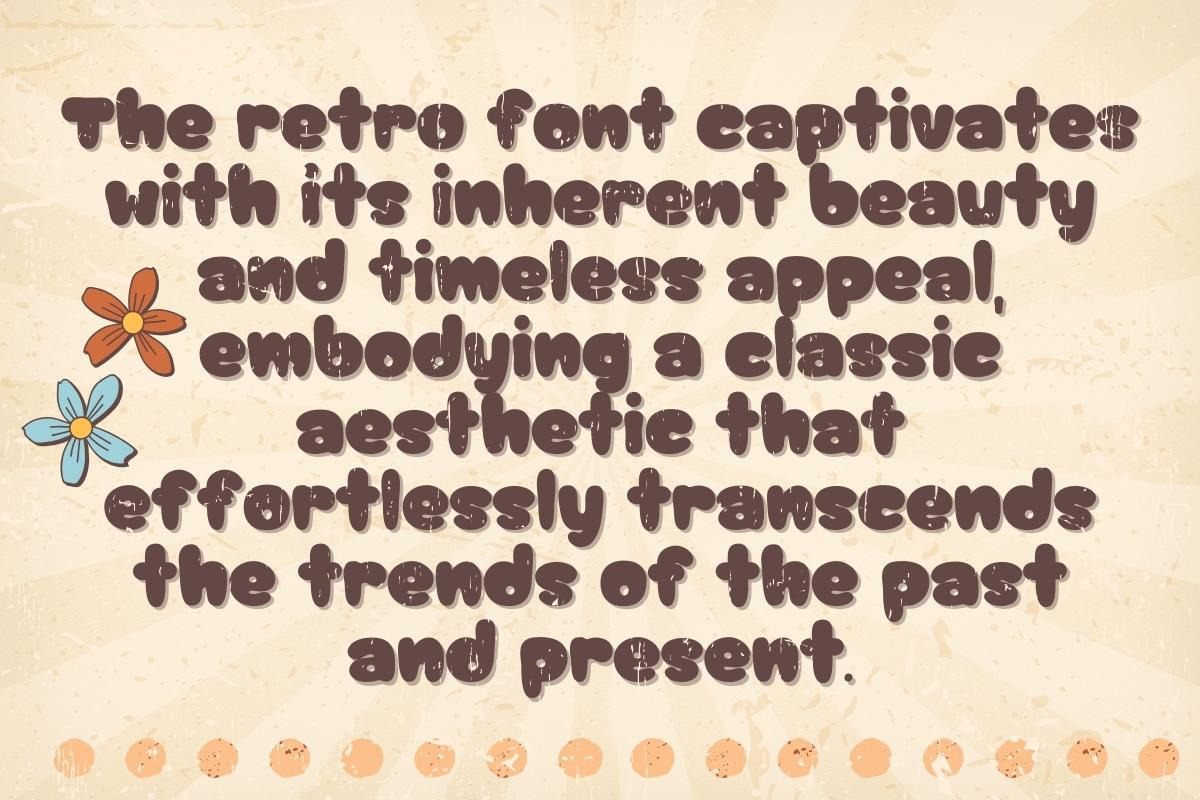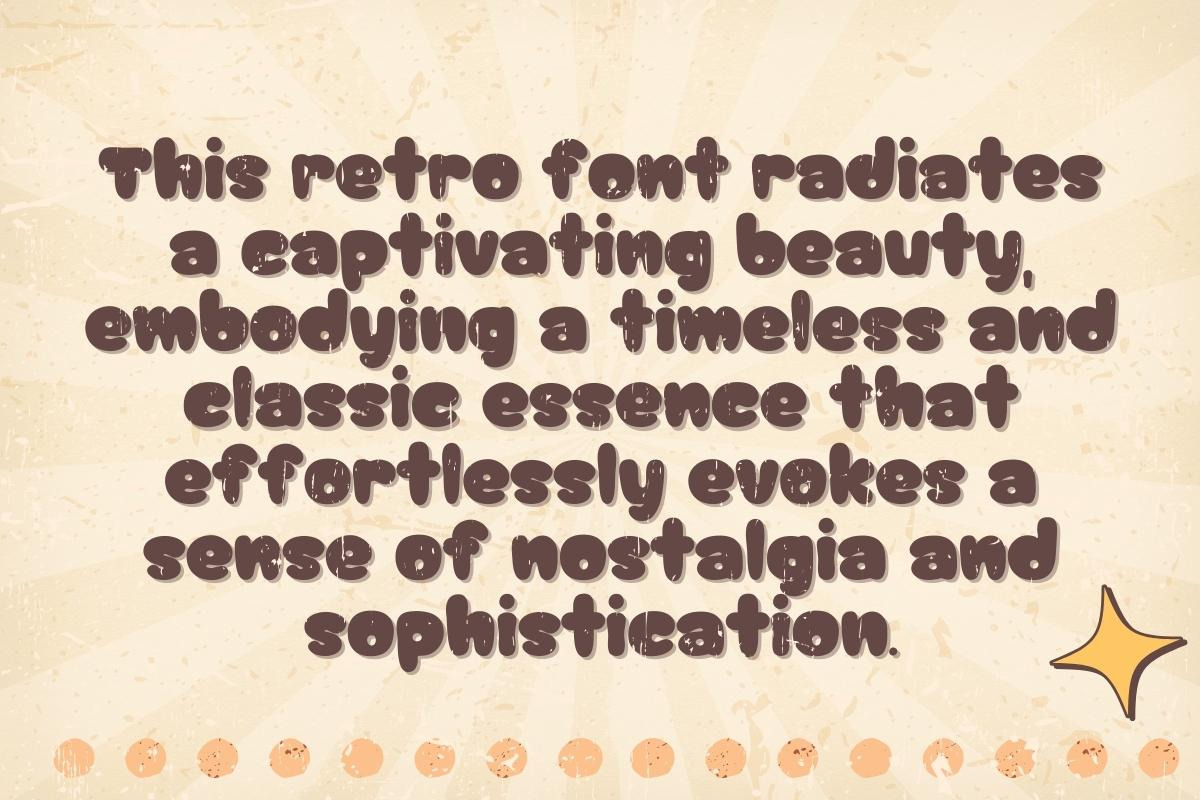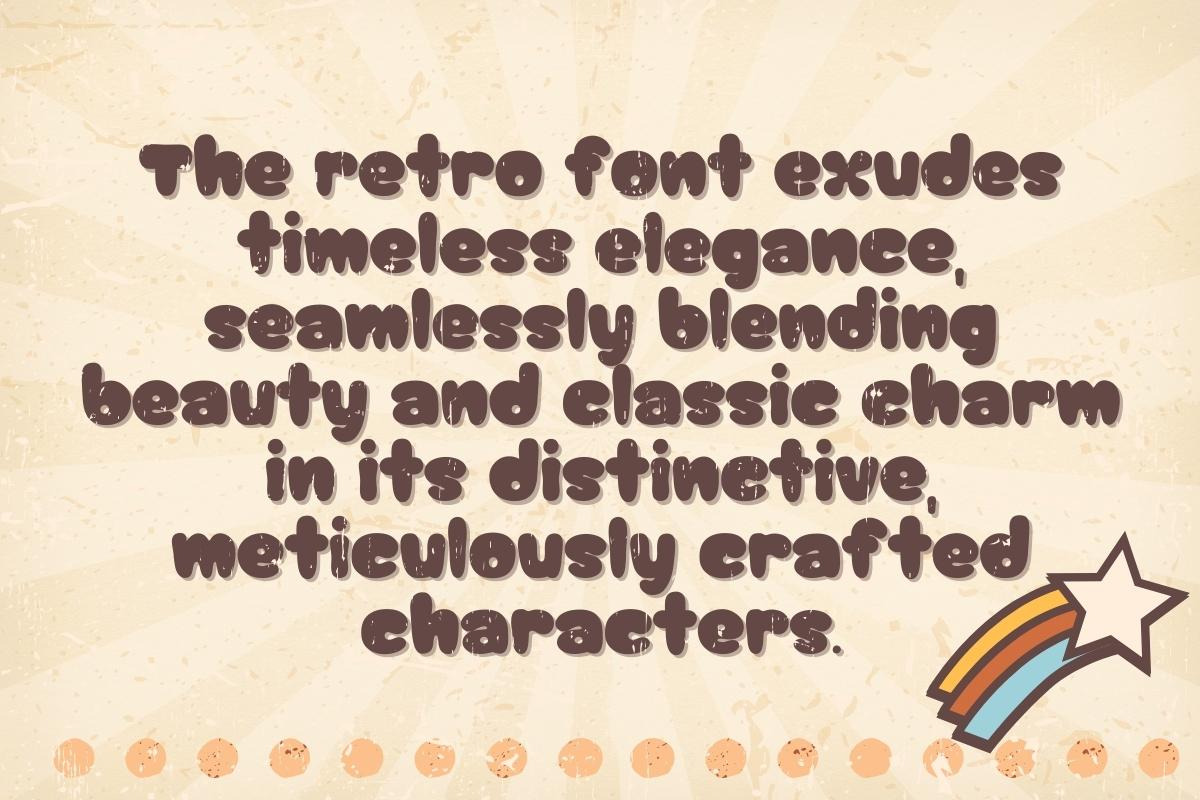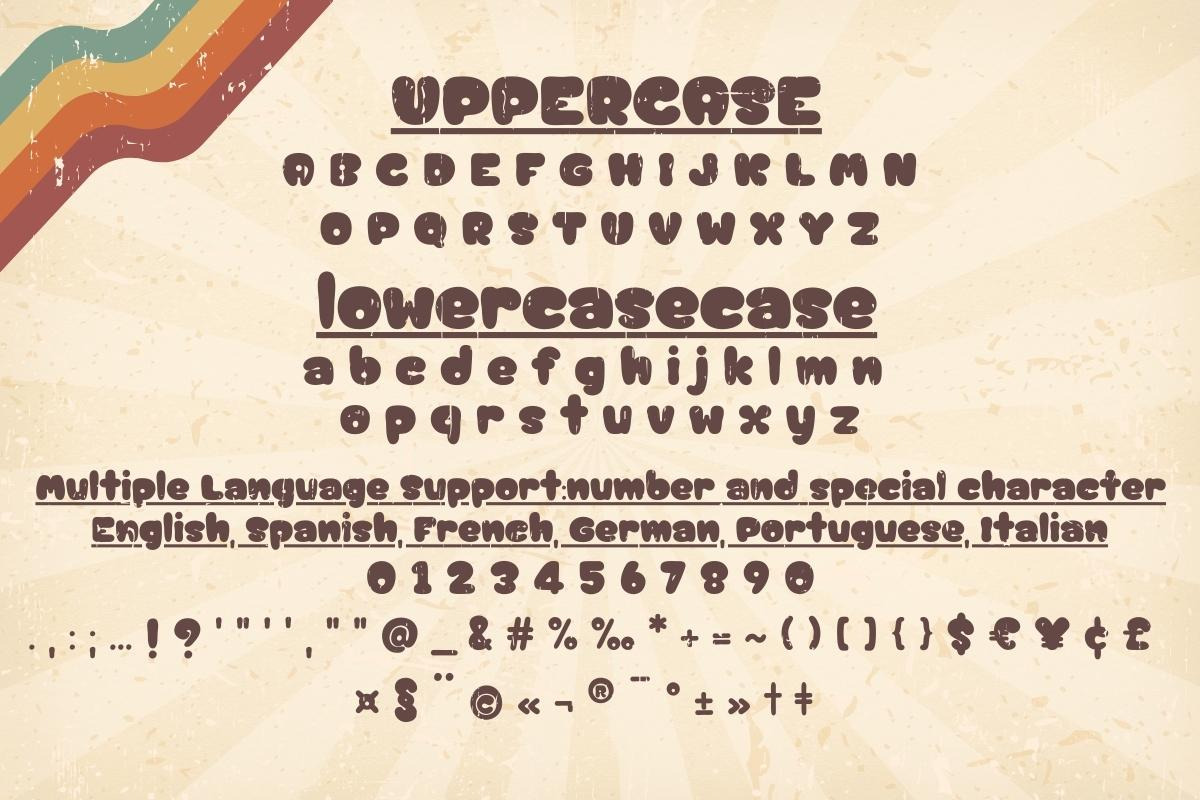
Groovy Retro Glyphs - Handwritting
Step into a whimsical world where letters dance with nostalgia and charm in "Groovy Retro Glyphs." Each character is a tiny time traveler, bringing a playful vintage vibe to your words. Let your creativity groove with this font, turning every message into a groovy masterpiece. Dive into the font fun!